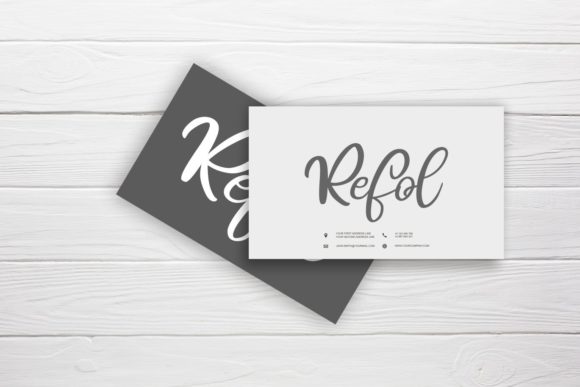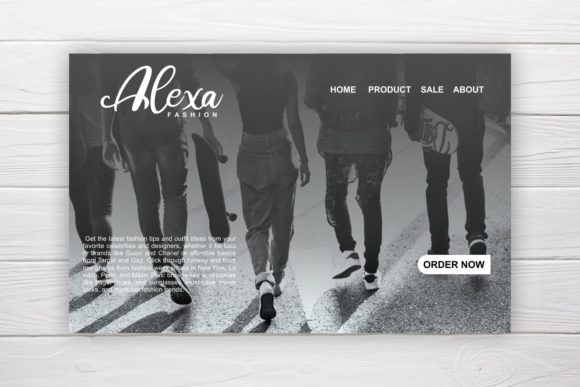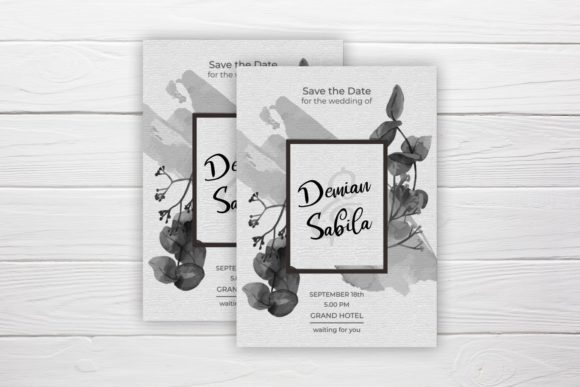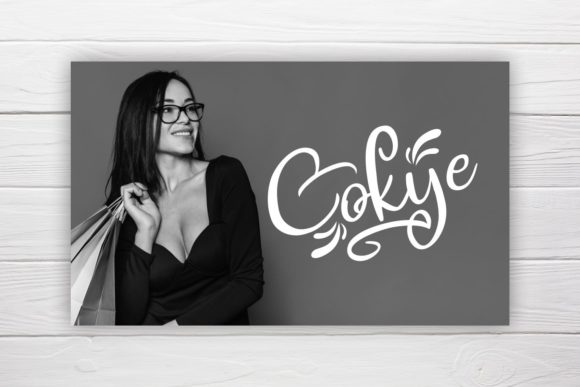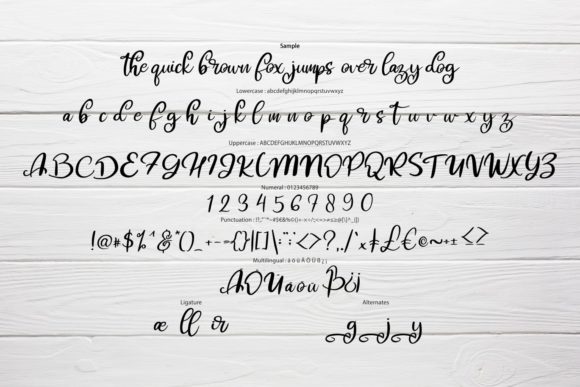
Introduction to Hibes Font
Imagine you’re working on a creative project, pouring your heart and soul into every detail, and the perfect font is all that’s missing to make it pop. You’ve spent hours searching for the perfect script, but nothing seems quite right. That’s when you stumble upon the Hibes Font – a game-changer for designers.
With its unique, high-quality design, the Hibes Font is an instant winner. Its transparent background and versatile style make it an ideal choice for any design project, from wedding invitations to social media graphics. What sets it apart, however, is its authenticity – a true reflection of the designer’s personality and style.
Key Features of Hibes Font
- Unique, modern design makes it perfect for modern and minimalist projects
Honest Review: Hibes Font
I recently had the chance to work with the Hibes Font, and I must say it’s a great addition to any designer’s toolkit. One of the standout features of this font is its versatility. ✨ It comes with a wide range of styles and weights, making it perfect for any creative project. Whether you’re working on a logo, brochure, or website, Hibes Font has got you covered.
- High quality and professional-looking
- Supports both Latin and Cyrillic alphabets
- Works well with both transparent and opaque backgrounds
However, I did notice a few limitations. ⚠️ For one, the font can be quite heavy on the system resources, which can cause some lag if you’re working on a complex project. Additionally, the font may not be suitable for projects that require a super thin or condensed font.
Overall, I’m really impressed with the Hibes Font. It’s a great resource for designers who need a high-quality font that can handle a variety of tasks. With its free download option and transparent background support, it’s definitely worth checking out.
Tips for Getting the Most Out of Hibes Font
Experiment with different font sizes, colors, and styles to achieve a unique look for your creative project. Use the Hibes Font in combination with other high-quality design elements to create a visually appealing design.
Common Use Cases for Hibes Font
The Hibes Font is suitable for a variety of design projects, including branding, marketing materials, and digital products. Its high-quality design makes it an ideal choice for creative professionals and designers.